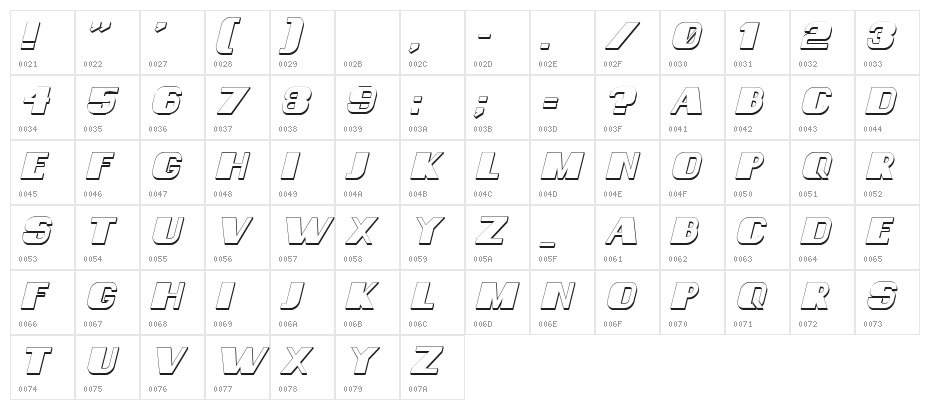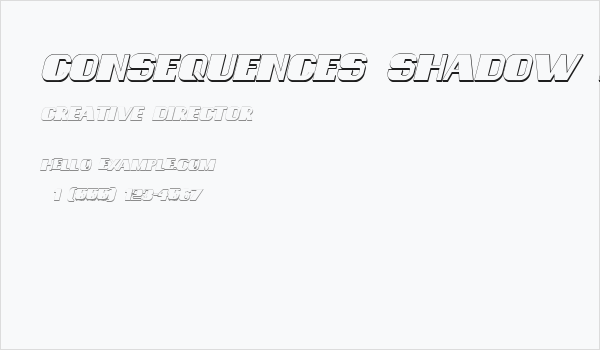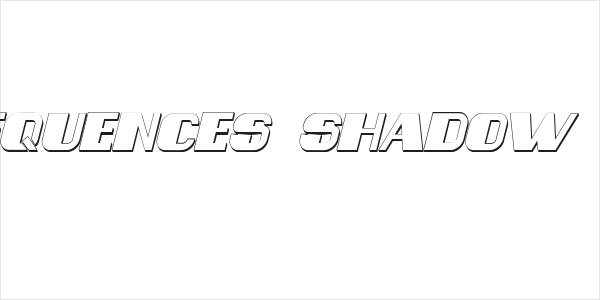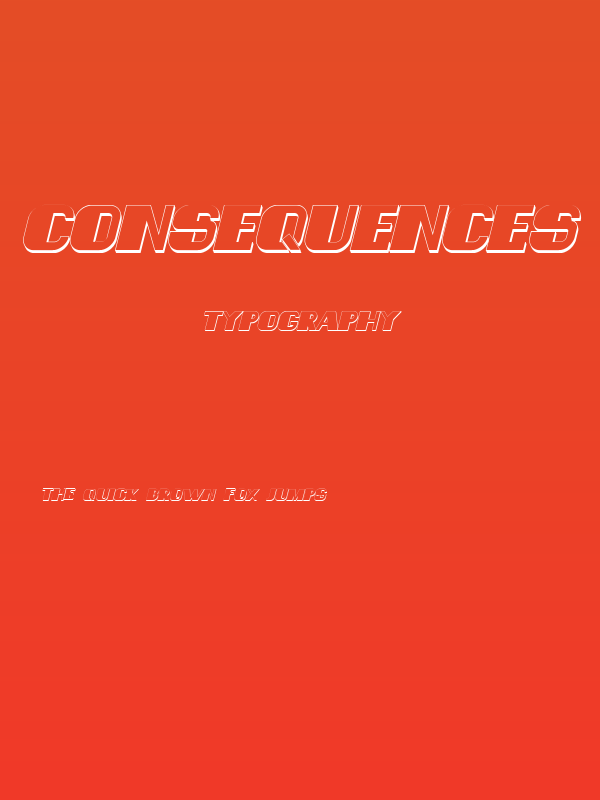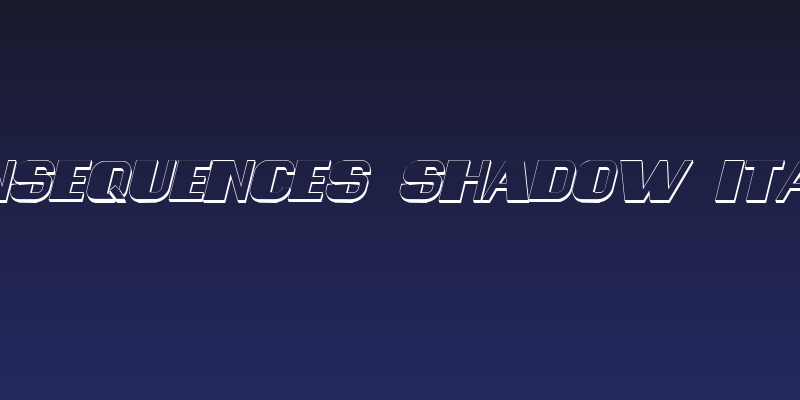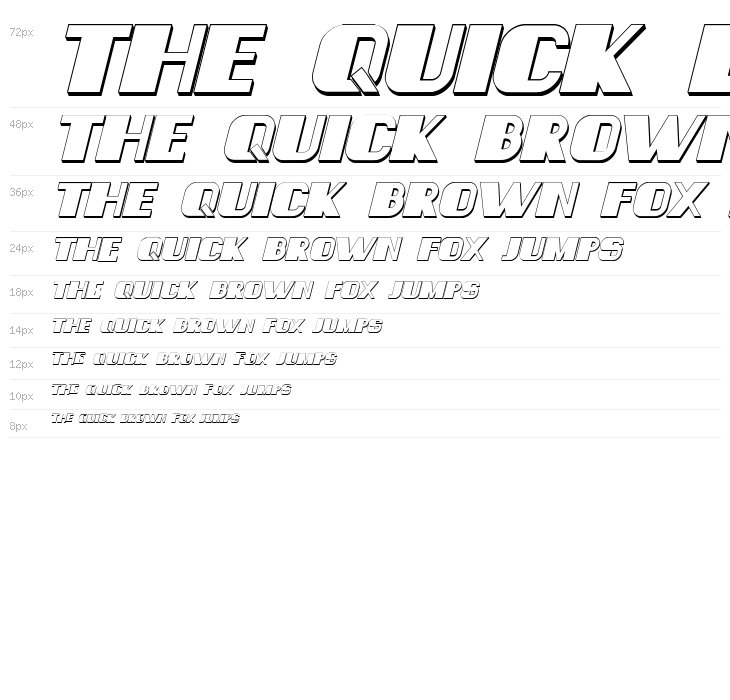
Consequences Shadow Italic Font
Consequences Shadow Italic Description
This font features a bold and dynamic style with a distinct shadow effect that gives it a three-dimensional appearance. The italicized letters add a sense of motion and energy, making it stand out in any design. The uppercase and lowercase letters are consistent in their slant and shadow, providing a cohesive look. The numerals and special characters maintain the same stylistic elements, ensuring uniformity across all text. The font's boldness and shadowing make it ideal for impactful headlines or titles, while the italic nature adds a touch of elegance and sophistication.
| Proposed Projects | Ideal for posters, logos, and branding materials where a strong visual impact is desired. |